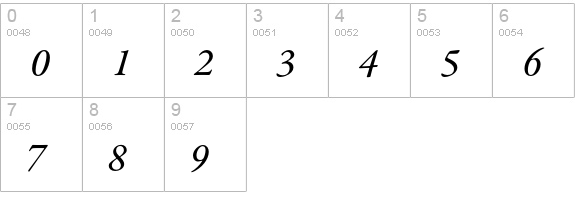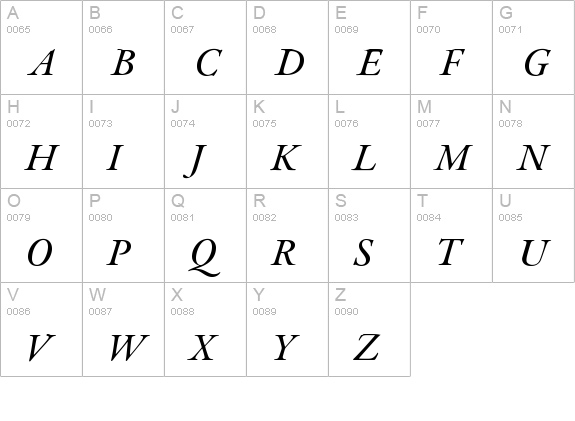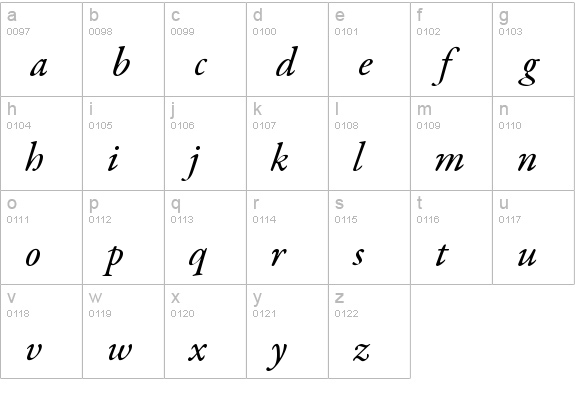
Garamond Premier Pro Medium Italic Font Details
Garamond Premier Pro Medium Italic is a balanced, medium-weight, italic variant in the Garamond typeface family \xE2\x80\x94 well suited to sub-headlines, navigation, and balanced editorial work.
Garamond Premier Pro Medium Italic is a sophisticated and elegant typeface that exudes timeless charm and authority. Its delicate italic style adds a touch of flair and grace to any design project, making it ideal for conveying a sense of refinement and sophistication. The medium weight strikes the perfect balance between impact and readability, making it versatile for a wide range of applications. What sets Garamond Premier Pro Medium Italic apart is not only its classic beauty but also the fact that it is available for free download at FontsMarket.com. This means that you can easily access and utilize this stunning font in your projects without any cost, allowing you to enhance your designs with a touch of luxury and sophistication without breaking the bank. Whether you're working on a branding project, editorial layout, or any other creative endeavor, Garamond Premier Pro Medium Italic is sure to elevate your work and leave a lasting impression. Download this exquisite font for free today and add a touch of timeless elegance to your designs.